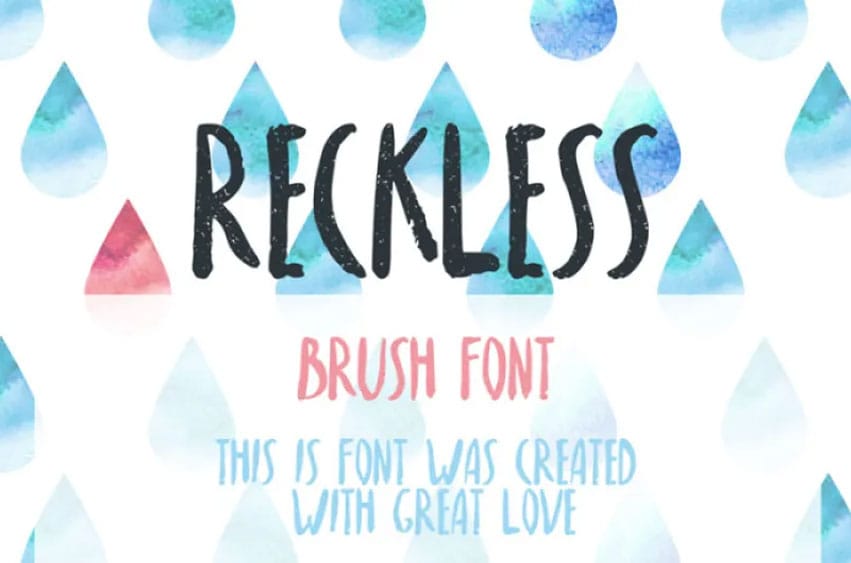
Reckless Font hand-brushed font is a perfect font that one can employ in any project be it personal or commercial as it adds life as well as charm to the project.
This is ideal for uses such as invitations lettersheads t-shirts badges and also more.